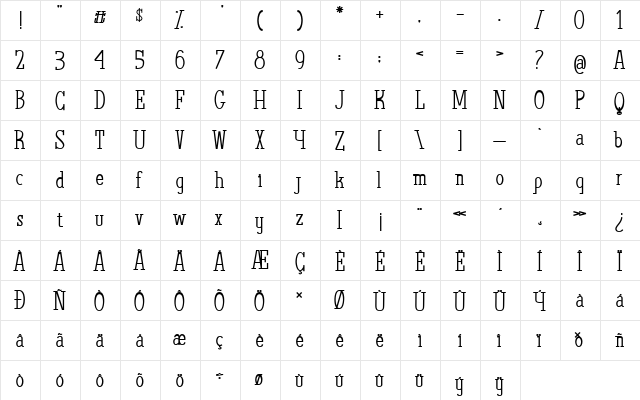
The Quest of Discoveries Regular
| Foundry | Maelle.K |
| Designer | Maelle.K |
Design Context for The Quest of Discoveries Typeface
The Quest of Discoveries is a composed and adaptable typeface that performs quietly and consistently across a wide range of design contexts.